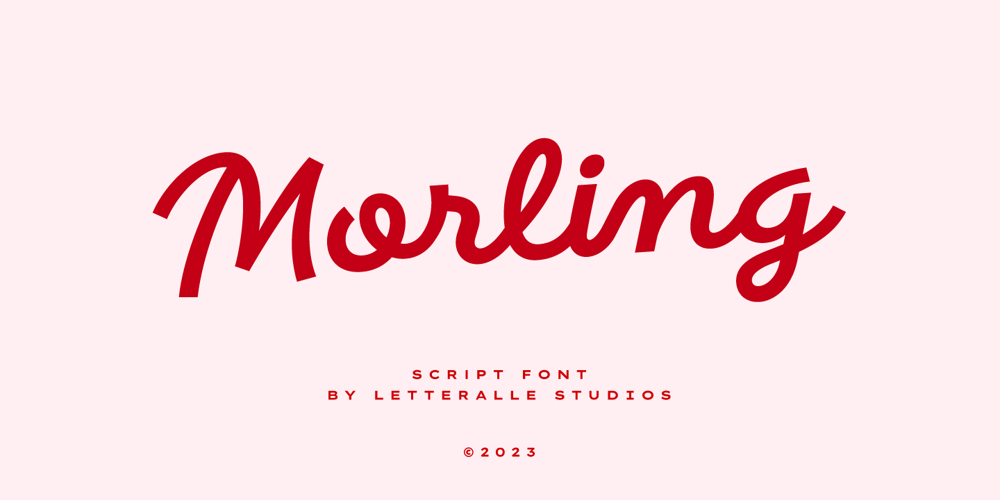
Morling Font Family was designed by Annas Alam Yahya and published by Letteralle. Morling contains 1 styles and family package options. Introducing Morling – Your Gateway to Casual Elegance!Are you ready to elevate your design game to a whole new level? Look no further than Morling, the latest addition to the world of fonts that will leave you spellbound. With its unique monoline style, Morling is not just a font; it’s an experience that transforms your every creative endeavor into a masterpiece.Morling is your ticket to effortless chic. This script font boasts a sleek, monoline design that effortlessly balances sophistication with a dash of casual charm. Its versatile nature makes it perfect for an array of display needs, whether it’s a branding project, an eye-catching logo, or captivating headlines.